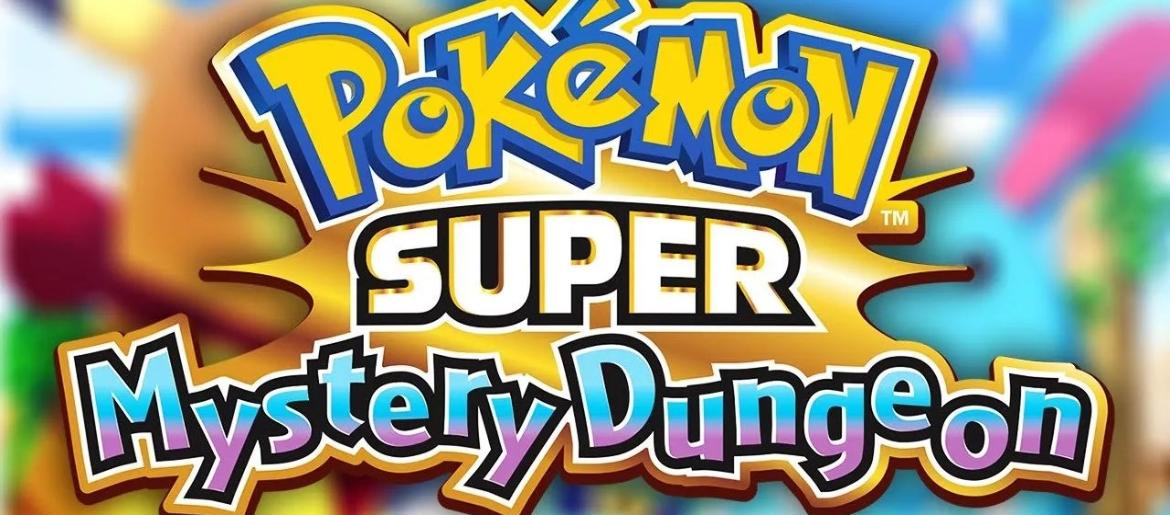
Pokemon Mystery Dungeon Font
What is The Font Of Pokemon Mystery Dungeon?
The Pokémon Mystery Dungeon Font is not a single typeface but a combination of two distinct fonts used in the game’s title design. The “Mystery Dungeon” text closely resembles Cafeteria Black, a sans-serif font designed by Tobias Frere-Jones, known for its bold, rounded shapes and friendly readability. The subtitle, such as “Explorers of Time,” appears to use House of T. from House Industries, a display font with rough, hand-drawn details that add an adventurous and mysterious feel Both fonts are commercial, but similar free alternatives can be used for fan projects and mockups.
About Pokémon Mystery Dungeon
Pokémon Mystery Dungeon is a spin-off game series released in 2005 by Nintendo and Chunsoft. Blending RPG mechanics with dungeon-crawling gameplay, the series is known for its emotional storytelling and unique visual identity, reinforced by its expressive typography.